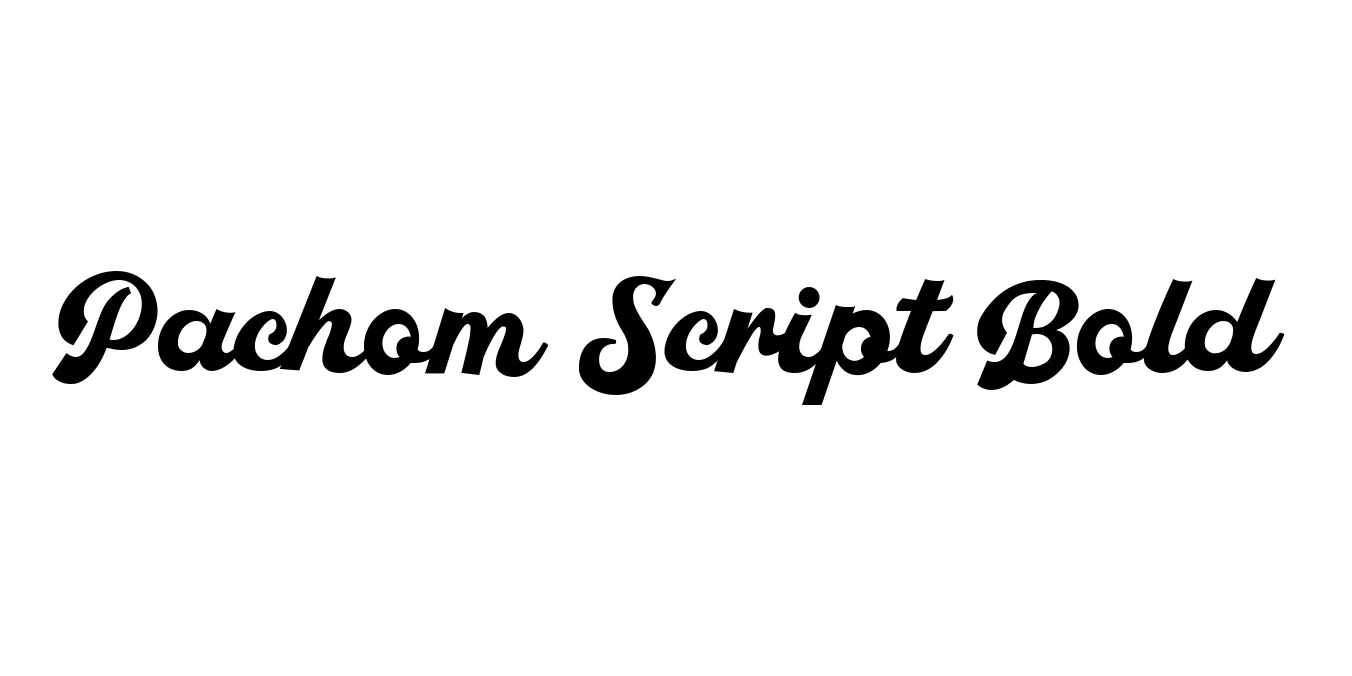
Pachom Script Bold
Designed by Teerayut Puchpen
Pachom Script Bold is a striking, expressive typeface designed by Teerayut Puchpen (K9 Type). It draws inspiration from traditional hand-painted signage and modern brush calligraphy, offering a fluid and energetic aesthetic that feels both nostalgic and contemporary. The Bold weight emphasizes the thick, confident strokes of the brush, making it an ideal choice for high-impact visual communication where a personal, handcrafted touch is necessary.
This font features a comprehensive set of characters including smooth curves and natural ligatures that enhance its flow and organic appearance. It is widely praised for its versatility across both digital and print media, especially for creative projects that need to convey warmth and artistic flair. Whether used for large-scale headlines or intimate branding details, Pachom Script Bold maintains excellent legibility while providing a distinct, hand-drawn personality.
Pachom Script Bold Best Uses
Perfect for creating memorable logos and visual identity systems that require a personal touch.
Adds a premium, handcrafted feel to product labels, boxes, and artisanal goods.
Excellent for eye-catching quotes, Instagram graphics, and digital storytelling.
The bold weight makes it highly effective for cafe boards, event posters, and shop windows.